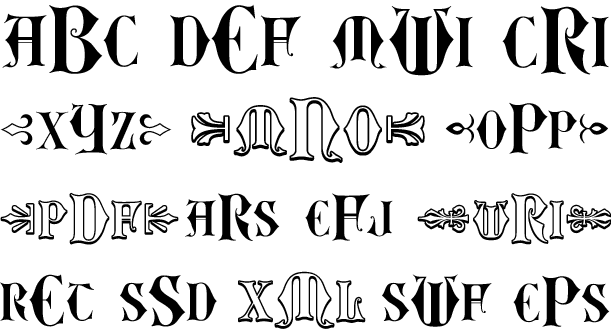
Royaume Monogram
About Royaume Monogram
The inspiration source for Royaume Monogram is a decorative letterset from the 1884 Ames\’ Guide to Self Instruction in Practical and Artistic Penmanship by Daniel T. Ames. This Medieval style monogram has been enhanced with a collection of ornate braces…